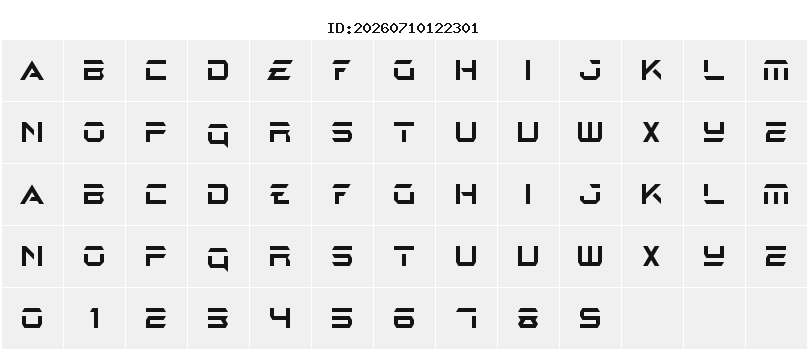
EA Logo Preview
• Font Name: EA Logo
• Font ID: FontStruct EA Logo
• Full Font Name: EA Logo Regular
• PostScript Name: EA-Logo
• Character Count: 64
• Designer: Daniel Lyons
• Description: ‚ÄúEA Logo‚Äù was built with FontStruct
About EA Logo.ttf
EA Logo.ttf is a modern, elegant sans-serif font designed for ultimate readability and visual harmony. Perfect for branding, headlines, web design, and print materials.